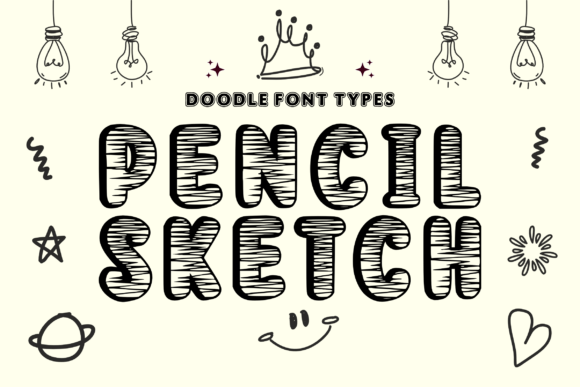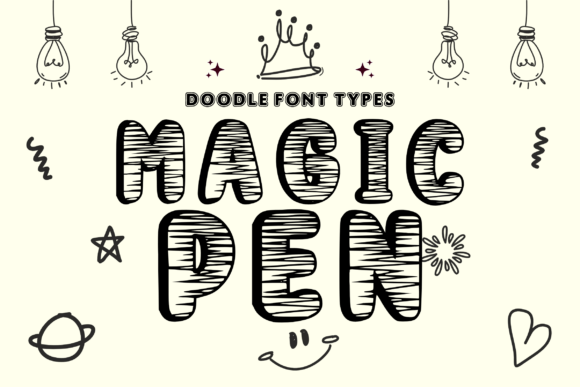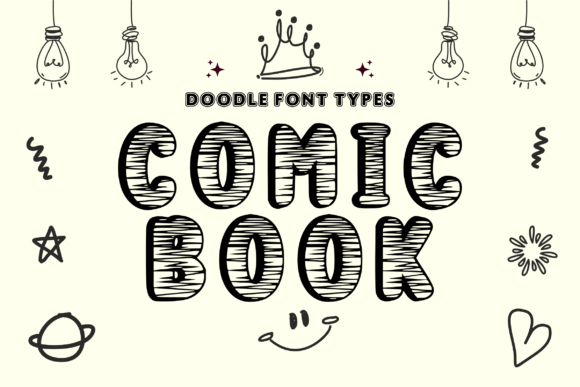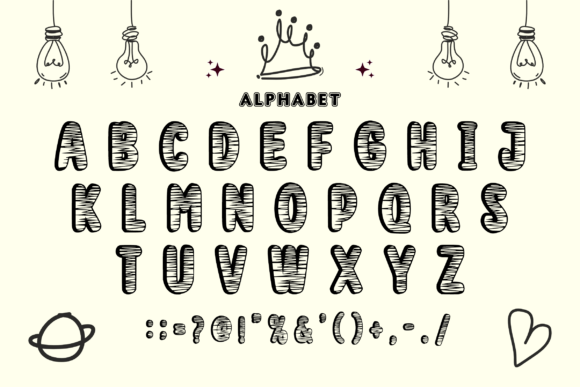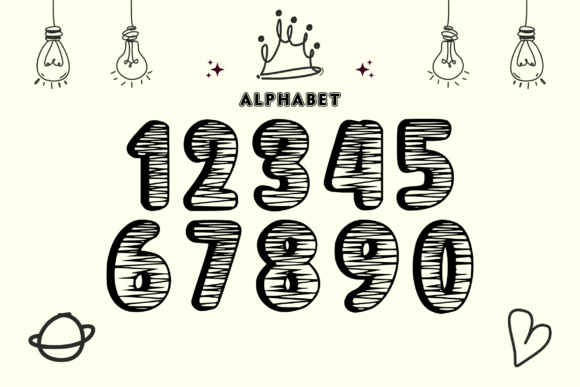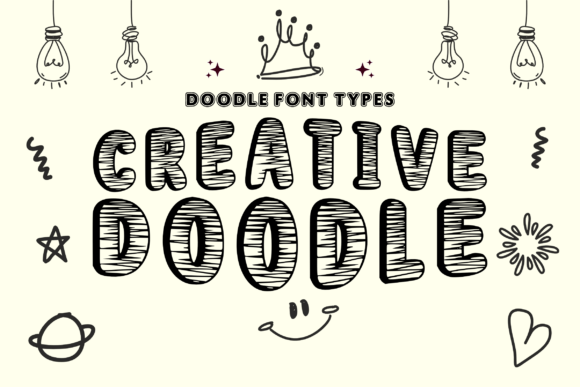
Introducing Creativedoodle Regular Font: The Ultimate Choice for Creative Designs
In the world of design, fonts play a crucial role in conveying the message and tone of a project. For crafters, designers, and artists, finding the right font can be a daunting task. However, if you’re looking for a font that adds a touch of charm and whimsy to your designs, look no further than Creativedoodle Regular Font. This contemporary sketch-like font is perfect for creating adorable and lively characters that are instantly identifiable.
What is Creativedoodle Regular Font?
Creativedoodle Regular Font, also known as Creative Doodle typeface, is a unique and versatile font designed to bring a touch of personality to your designs. Its sketch-like appearance gives it a hand-drawn feel, making it perfect for a wide range of creative projects. Whether you’re working on sublimation designs, animations, or comic titles, Creative Doodle font is the go-to choice for adding a dash of charm and character.
Key Features of Creativedoodle Regular Font
- Contemporary Sketch-Like Design: Creativedoodle Regular Font boasts a modern and fresh design that is both visually appealing and engaging.
- Adorable and Lively Characters: The font features instantly recognizable characters that are sure to capture the attention of your audience.
- Versatile and Flexible: Creative Doodle font can be used for a wide range of projects, from sublimation designs to animations and comic titles.
- Easy to Read: Despite its sketch-like appearance, the font is easy to read, making it perfect for both headlines and body text.
Uses of Creativedoodle Regular Font
Creativedoodle Regular Font is perfect for a variety of creative projects, including:
- Sublimation Designs: Add a touch of charm to your t-shirt, mug, tote bag, and other sublimation designs with Creative Doodle font.
- Animations: Bring your animations to life with the playful and lively characters of Creativedoodle Regular Font.
- Comic Titles: Create attention-grabbing comic titles that stand out from the crowd with the unique and quirky design of Creative Doodle font.
- Crafting and DIY Projects: Use Creativedoodle Regular Font to add a personal touch to your crafting and DIY projects, such as handmade cards, invitations, and more.
Why Choose Creativedoodle Regular Font?
With so many fonts available, why choose Creativedoodle Regular Font? Here are just a few reasons:
- Unique Design: Creativedoodle Regular Font features a unique and recognizable design that sets it apart from other fonts.
- High-Quality: Creativedoodle Regular Font is a high-quality font that is designed to produce crisp and clear results, even at small sizes.
In conclusion, Creativedoodle Regular Font is the ultimate choice for designers and crafters looking to add a touch of charm and whimsy to their projects. With its unique and recognizable design, versatile uses, and high-quality performance, Creative Doodle font is sure to become a staple in your design toolkit. So why wait? Download Creativedoodle Regular Font today and take your designs to the next level!